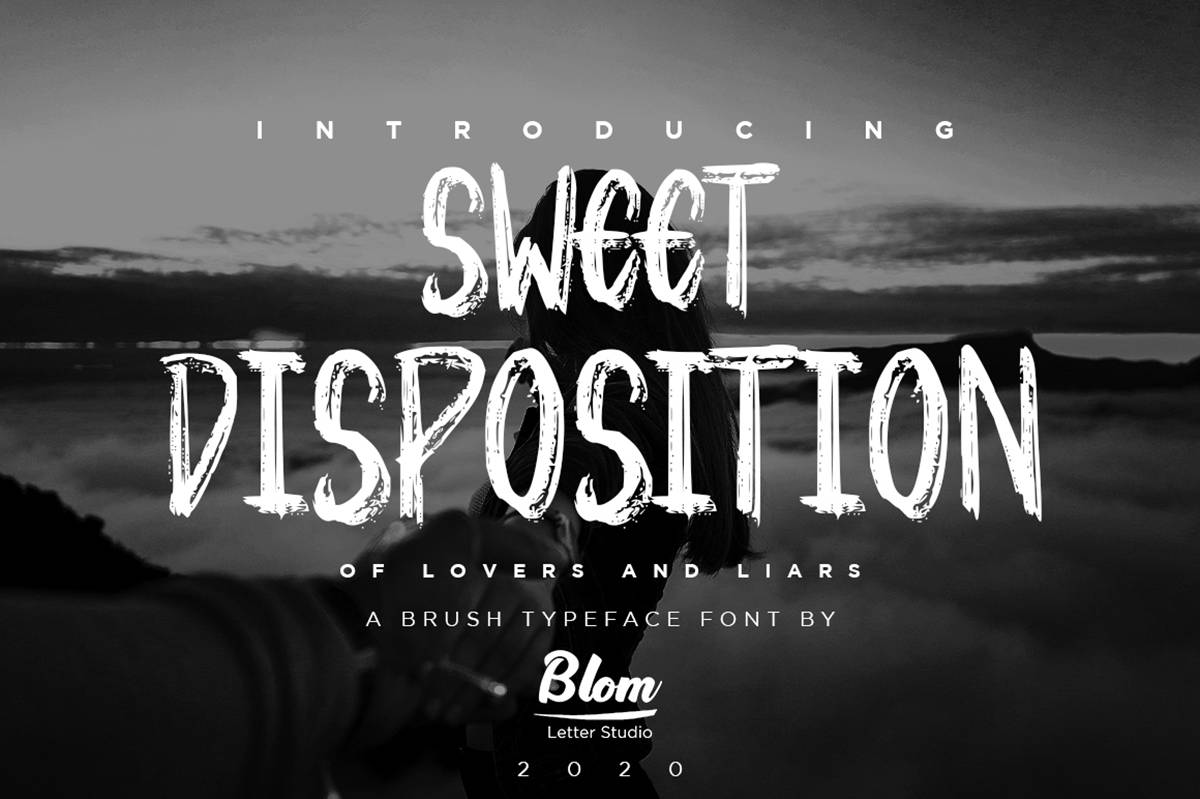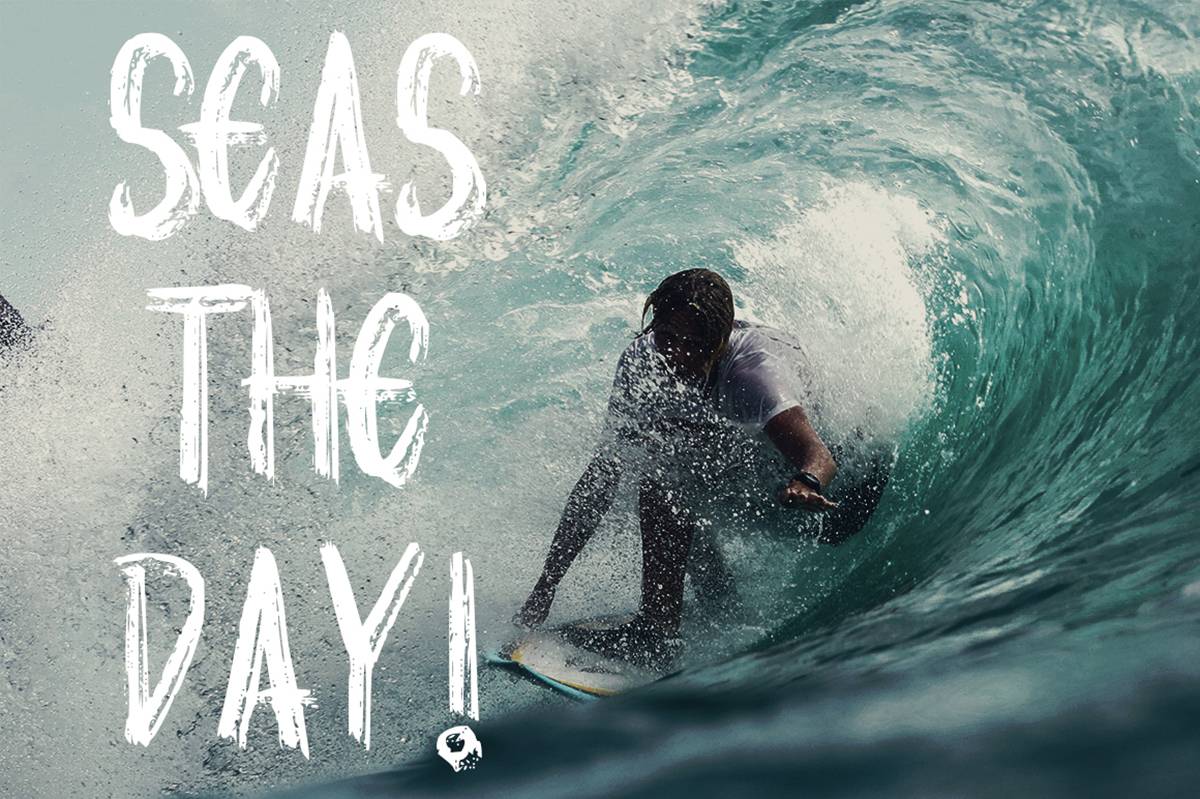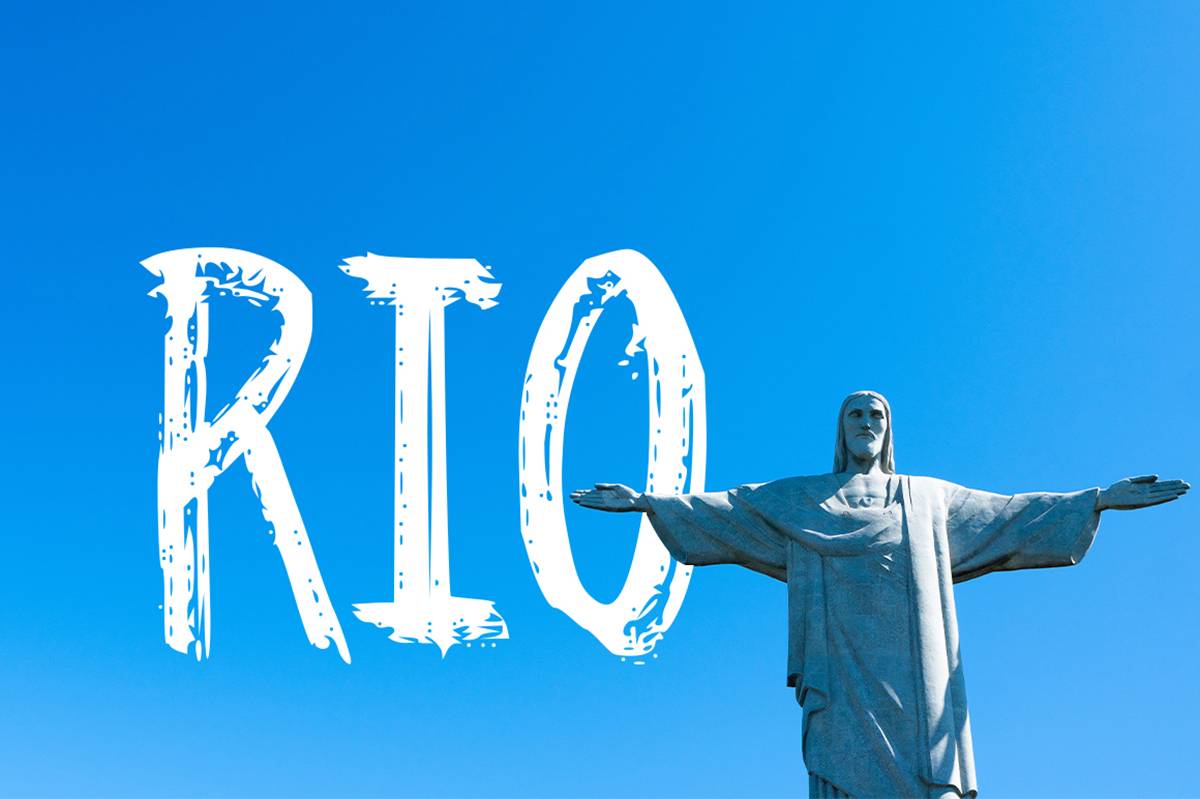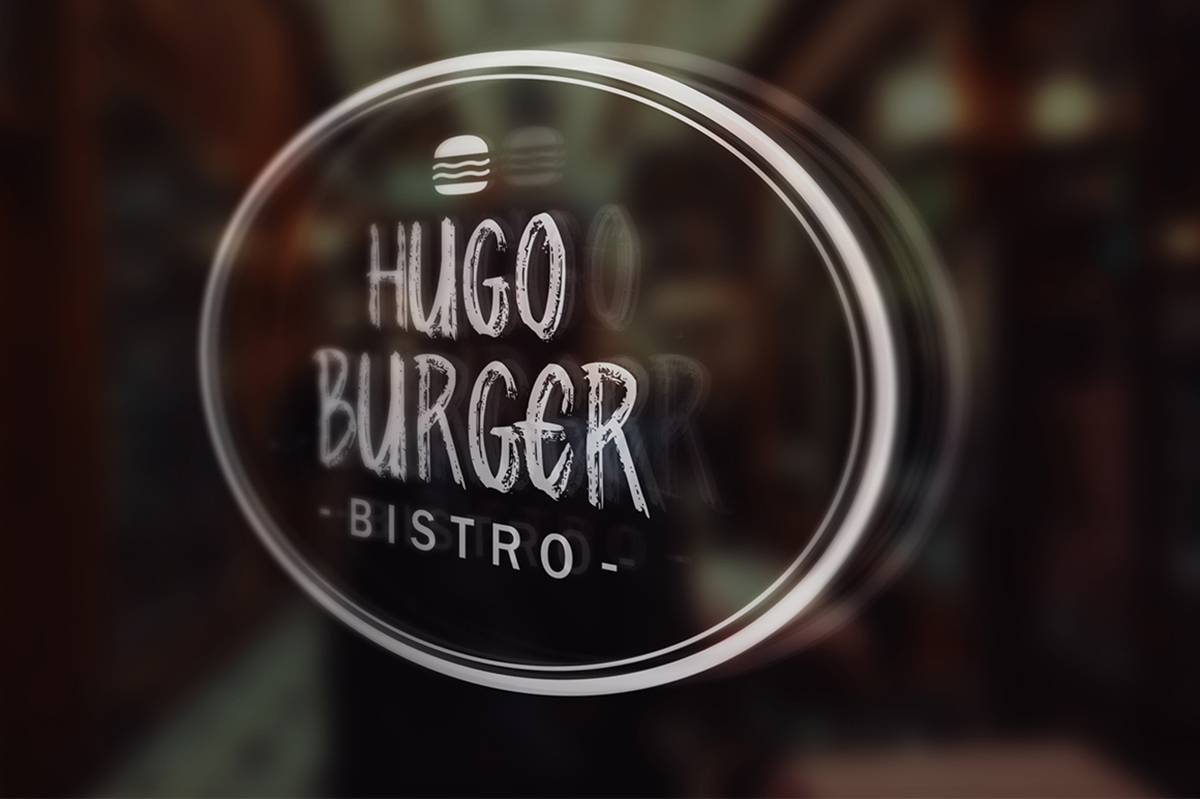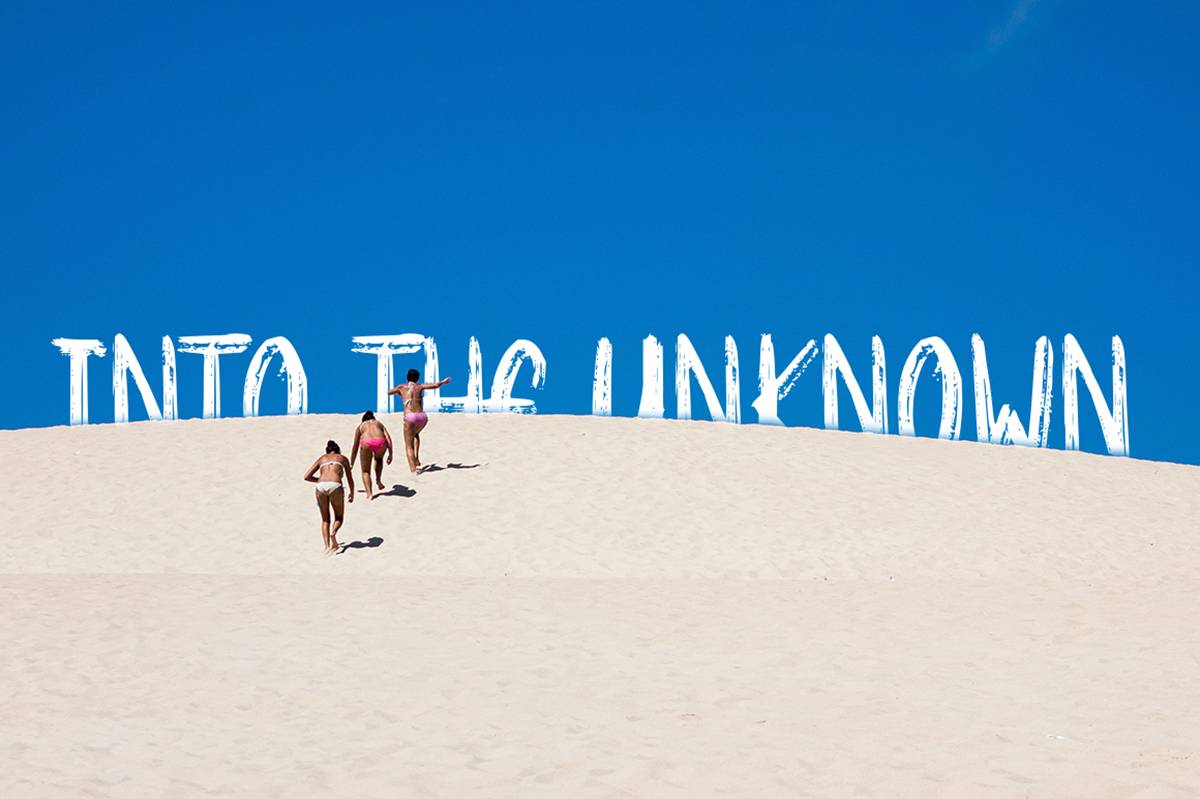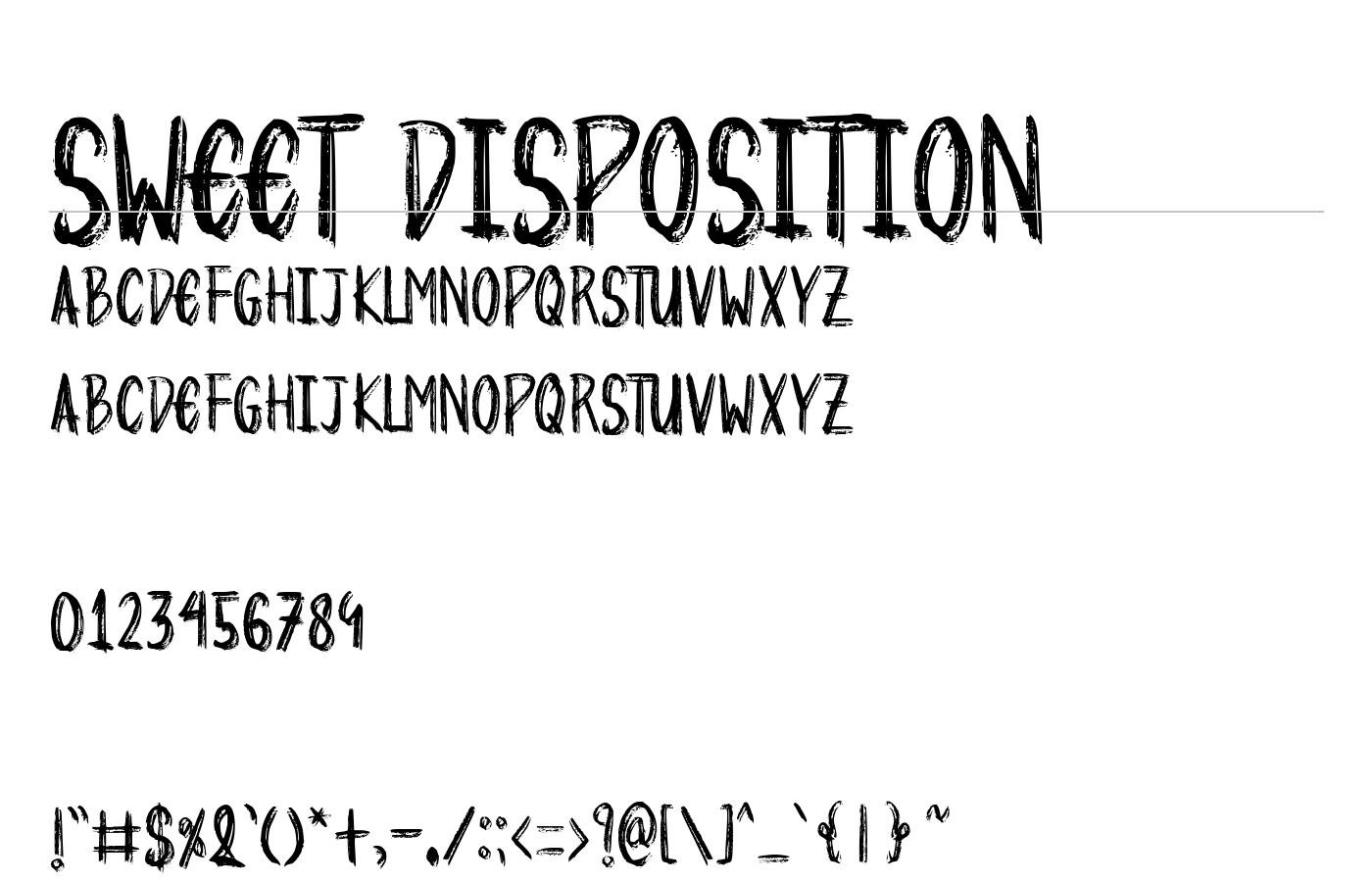
Sweet Disposition is a bold, distressed sans serif font with a hand-drawn, textured look that evokes a gritty, artistic vibe. Its tall, narrow letterforms with irregular edges and high contrast strokes give it a raw, expressive personality perfect for creative projects, posters, or branding that needs an edgy, urban feel. This font works best in headlines or display settings where its unique texture and strong presence can stand out.
Sweet Disposition Font
About Sweet Disposition Font
| Font family | Sweet Disposition Font |
| Designer | Muhammad Hisyam Rivai |